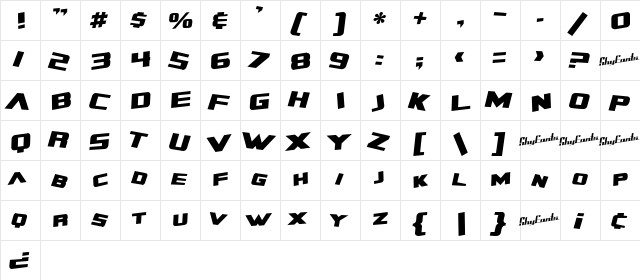
SF Zero Gravity Bold Italic
Design Context for SF Zero Gravity Typeface
SF Zero Gravity is a composed and adaptable typeface that performs quietly and consistently across a wide range of design contexts. The dynamic lean of this cut emphasises speed and emphasis in any layout. Its bold stroke weight gives it real presence on the page.
Pro Tip: Use SF Zero Gravity for emphasis, pull quotes, and subheadings where its slanted energy can add rhythm to the layout.